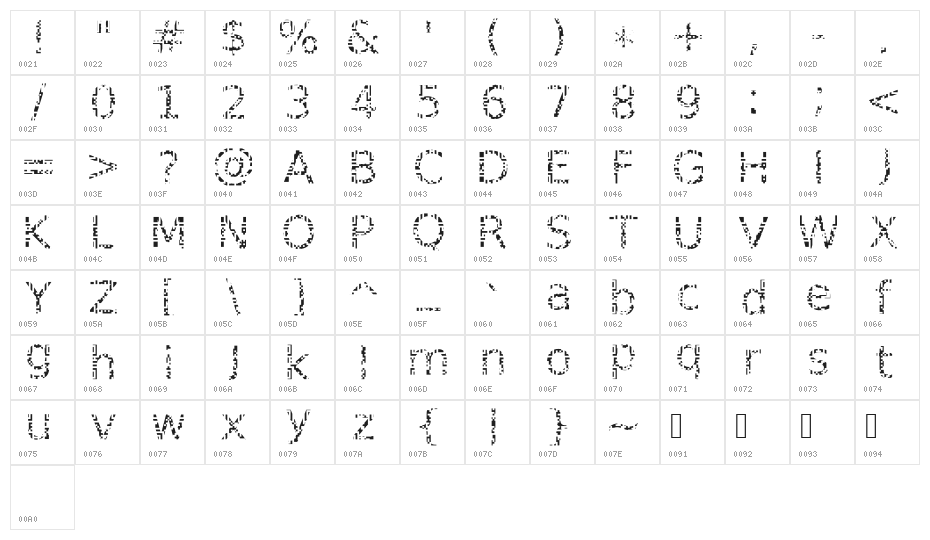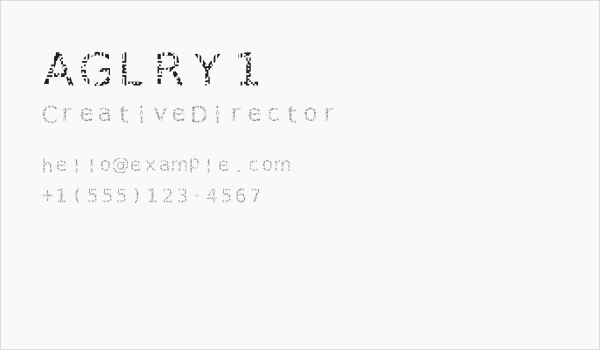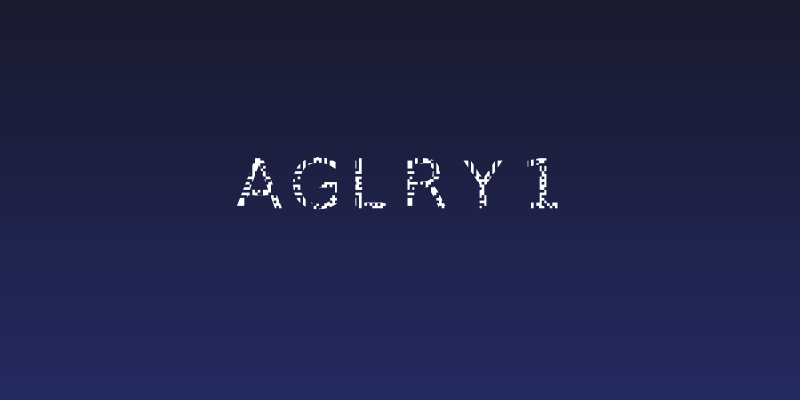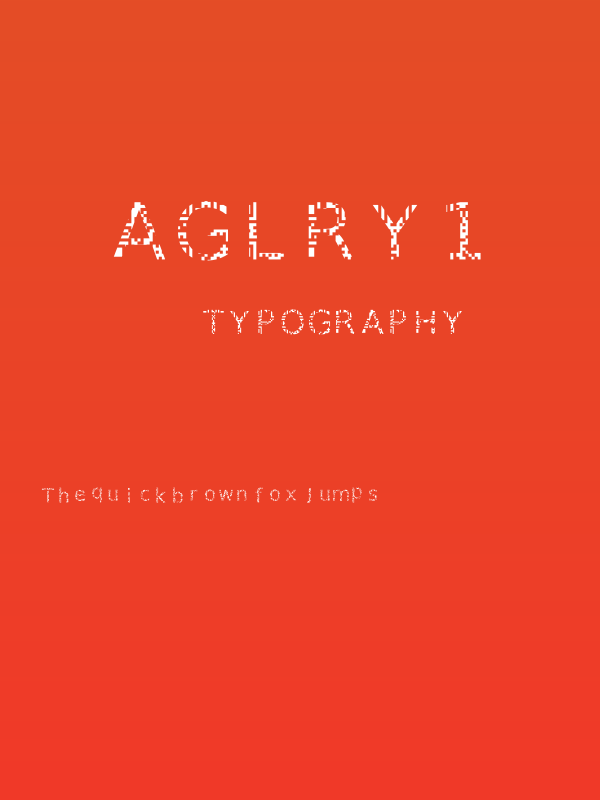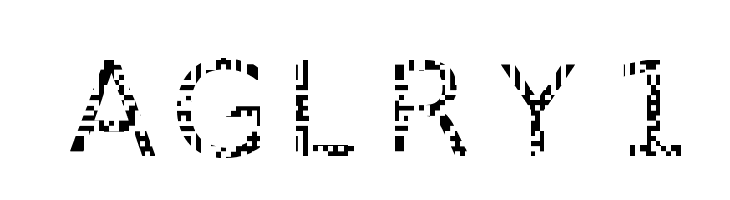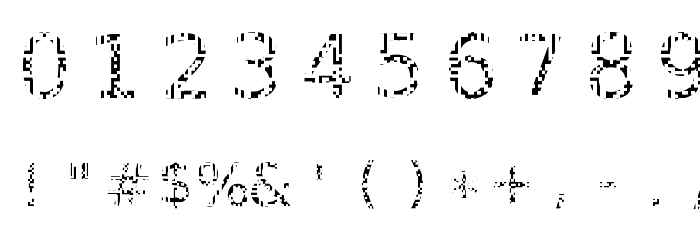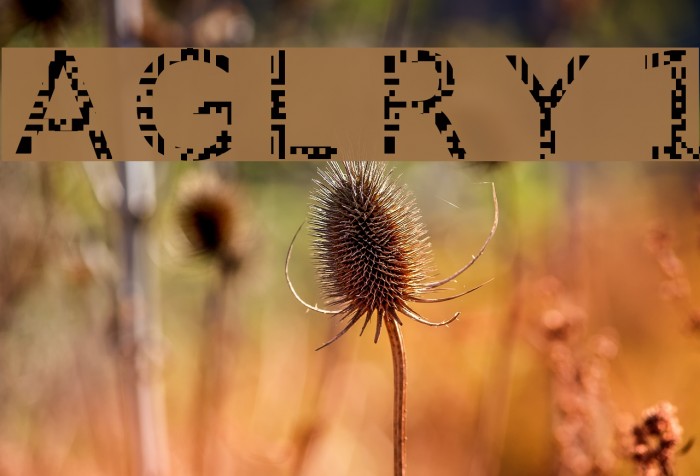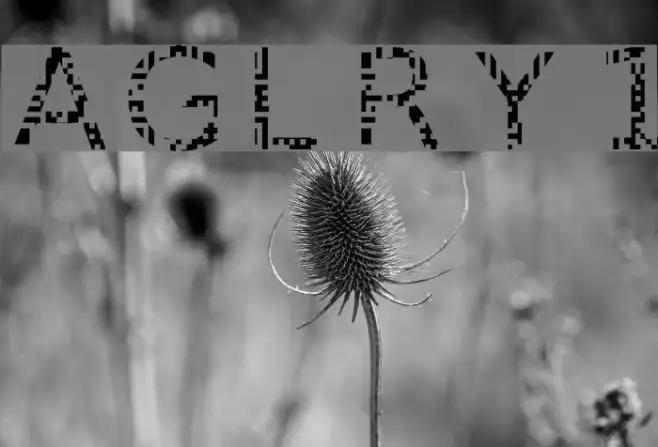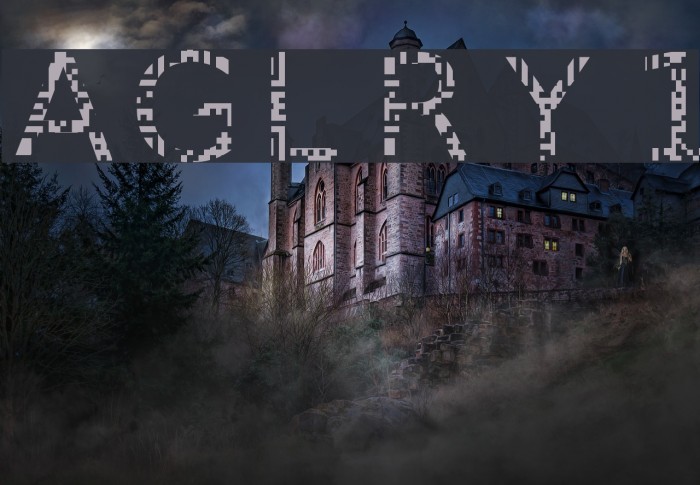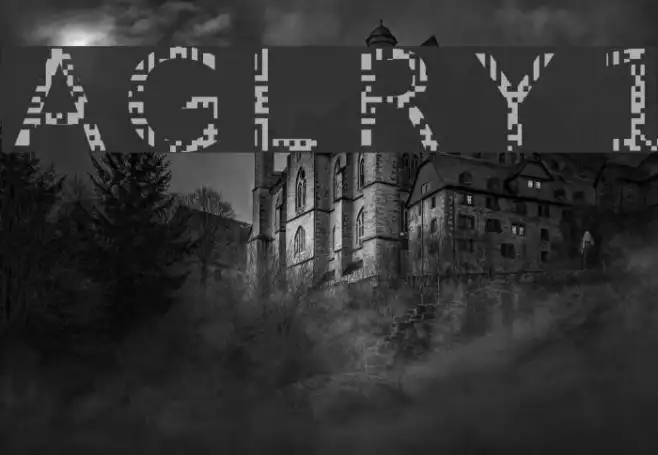
AGLRY 1 Font
AGLRY 1 Description
This font features a distressed, grunge aesthetic with a textured appearance that gives it a worn, vintage feel. Each character is uniquely eroded, creating a sense of age and history. The uppercase and lowercase letters maintain a consistent height, while the numerals and special characters follow the same distressed style. The font's irregular edges and rough texture make it ideal for projects that require a rugged or antique look. Despite its distressed nature, the characters remain legible and distinct, providing a balance between style and readability.
AGLRY-1 UPPERCASE
AGLRY-1 LOWERCASE
AGLRY-1 OTHER CHARS
| Use Case | Logos, Posters, Headlines |
| Proposed Projects | Ideal for vintage posters, album covers, branding for rustic products, or any design needing a grunge aesthetic. |